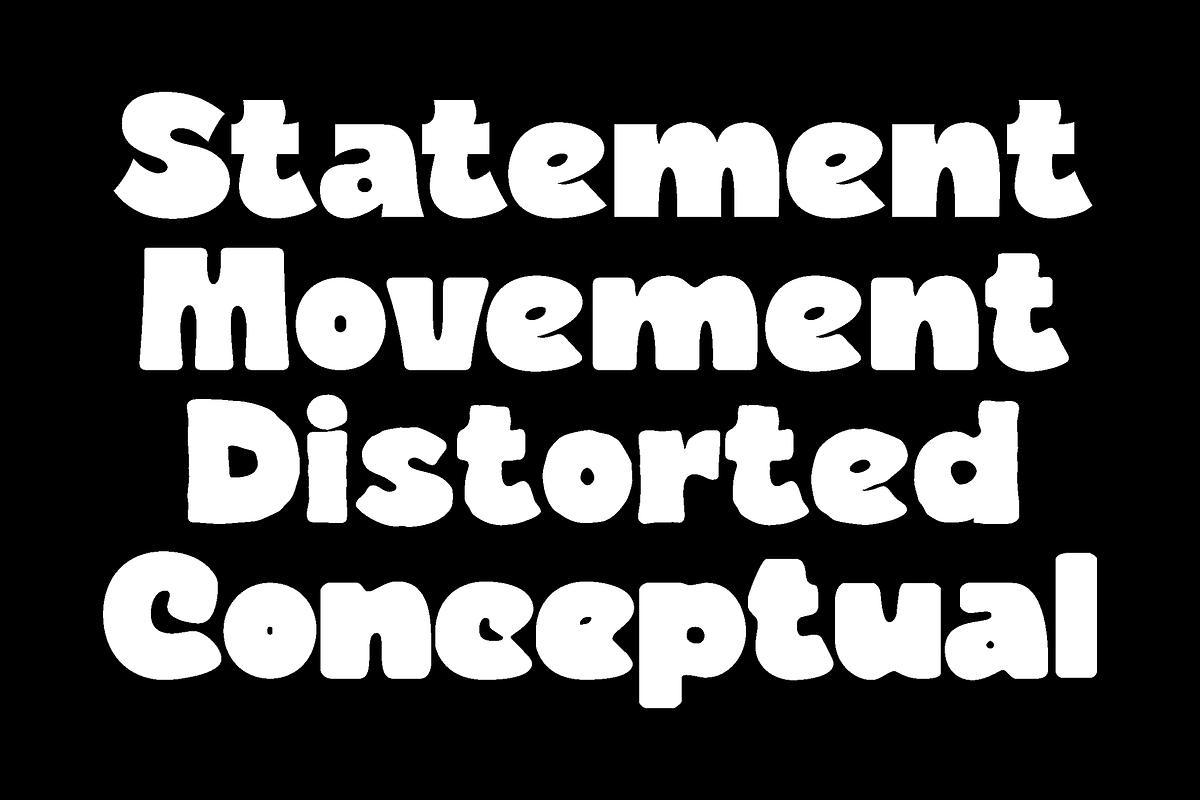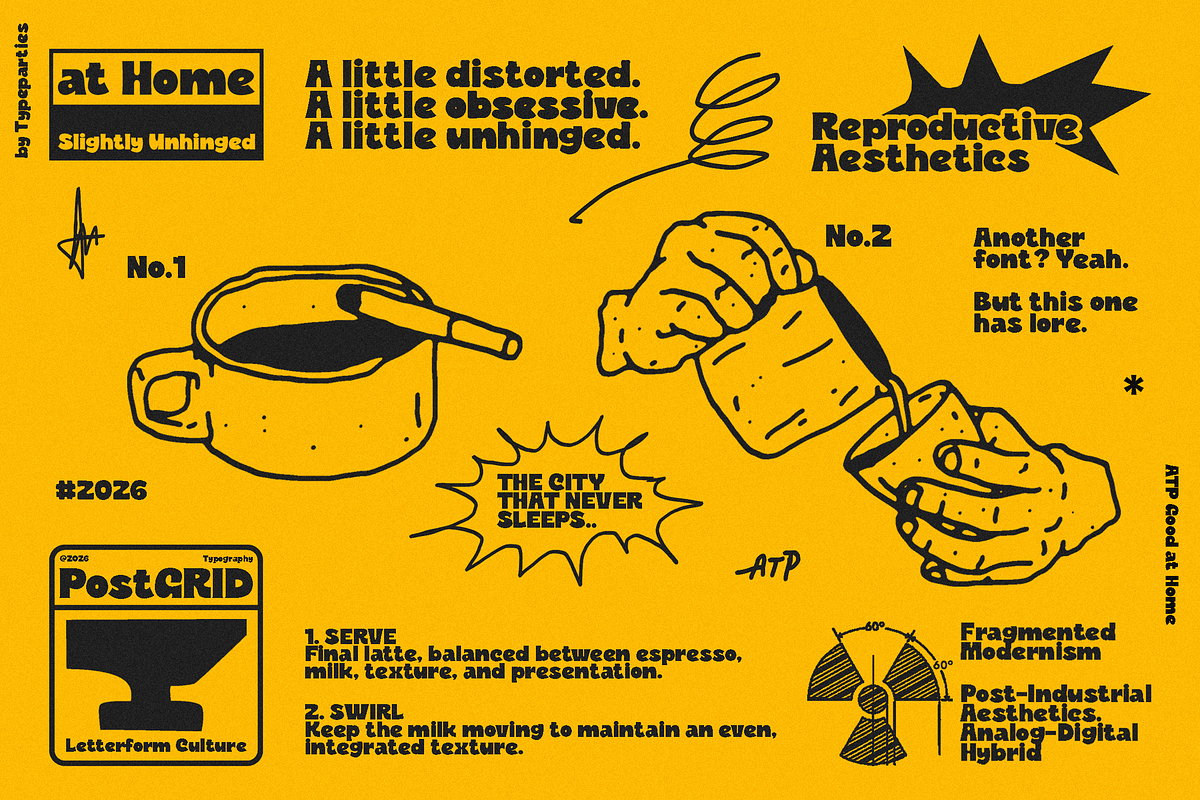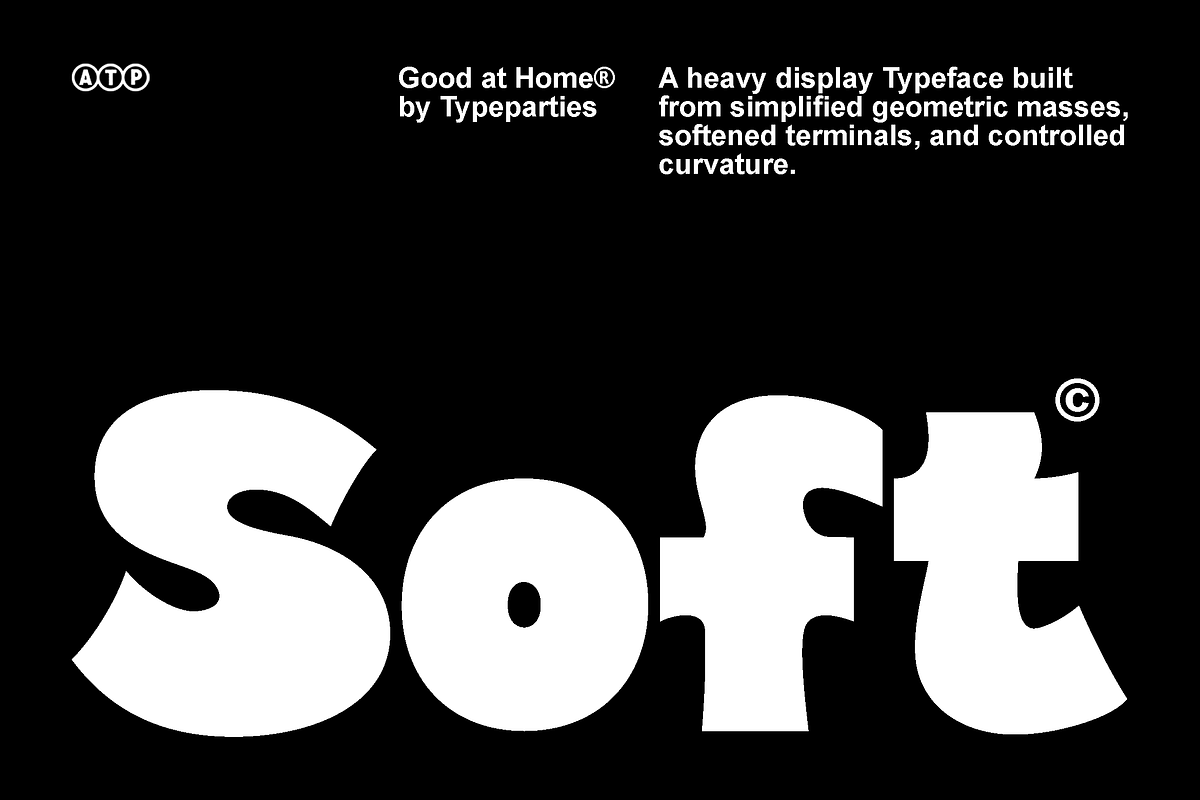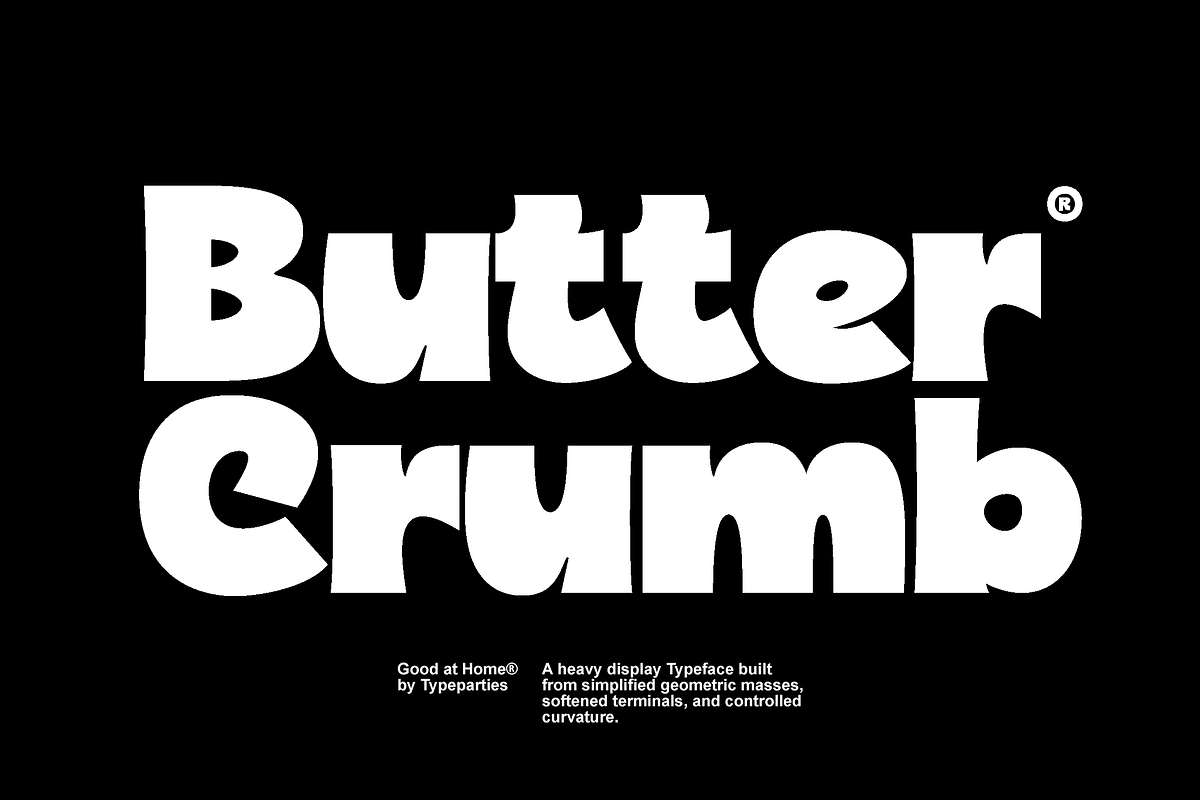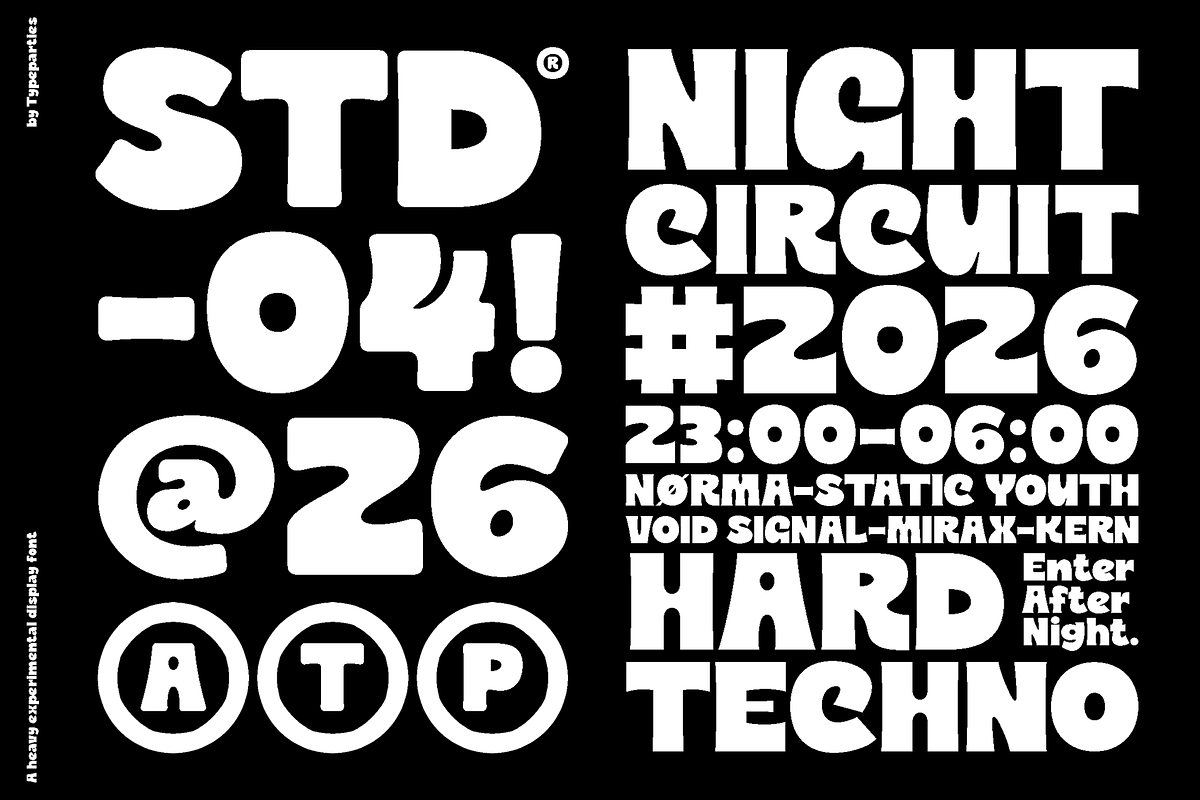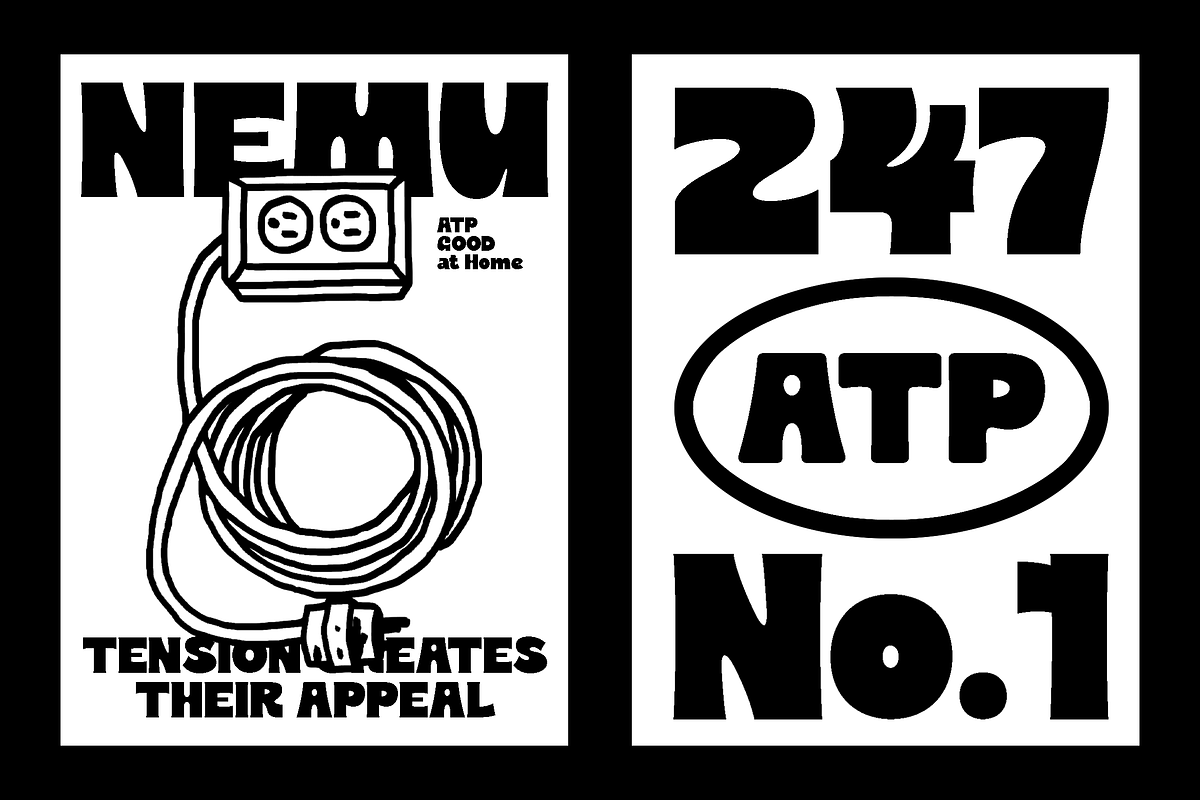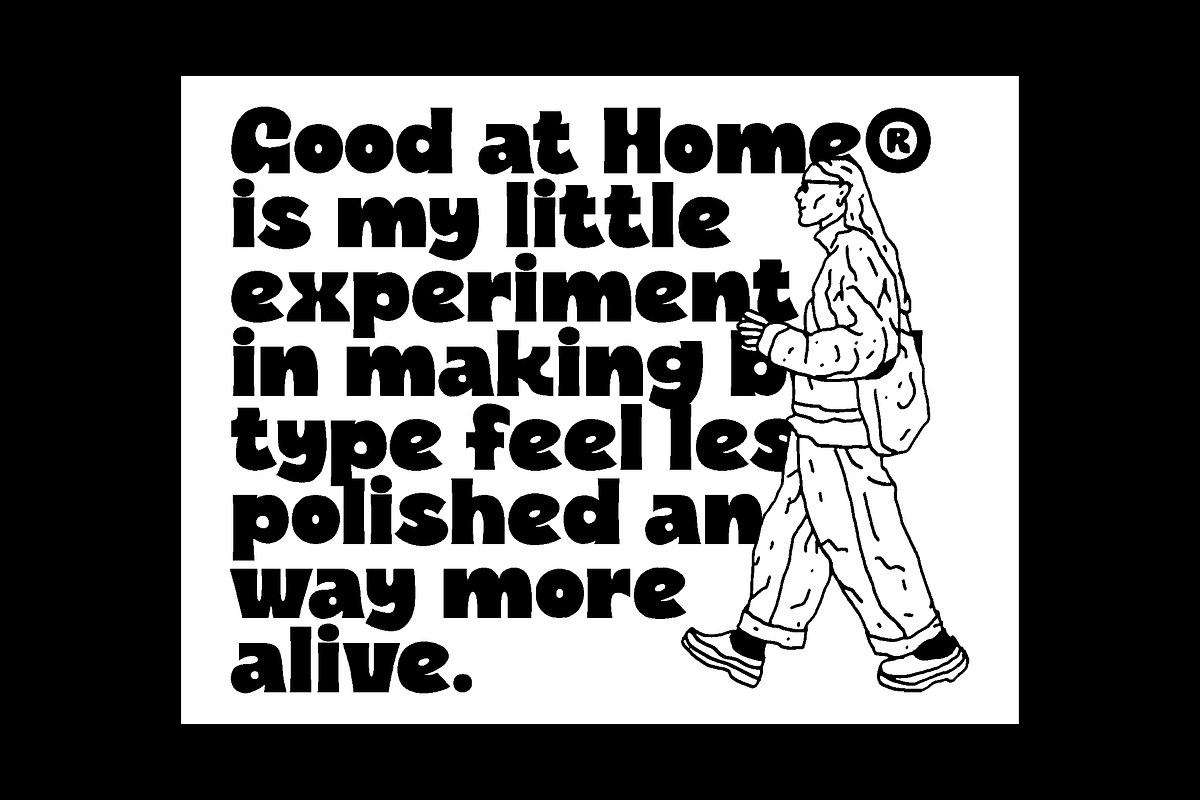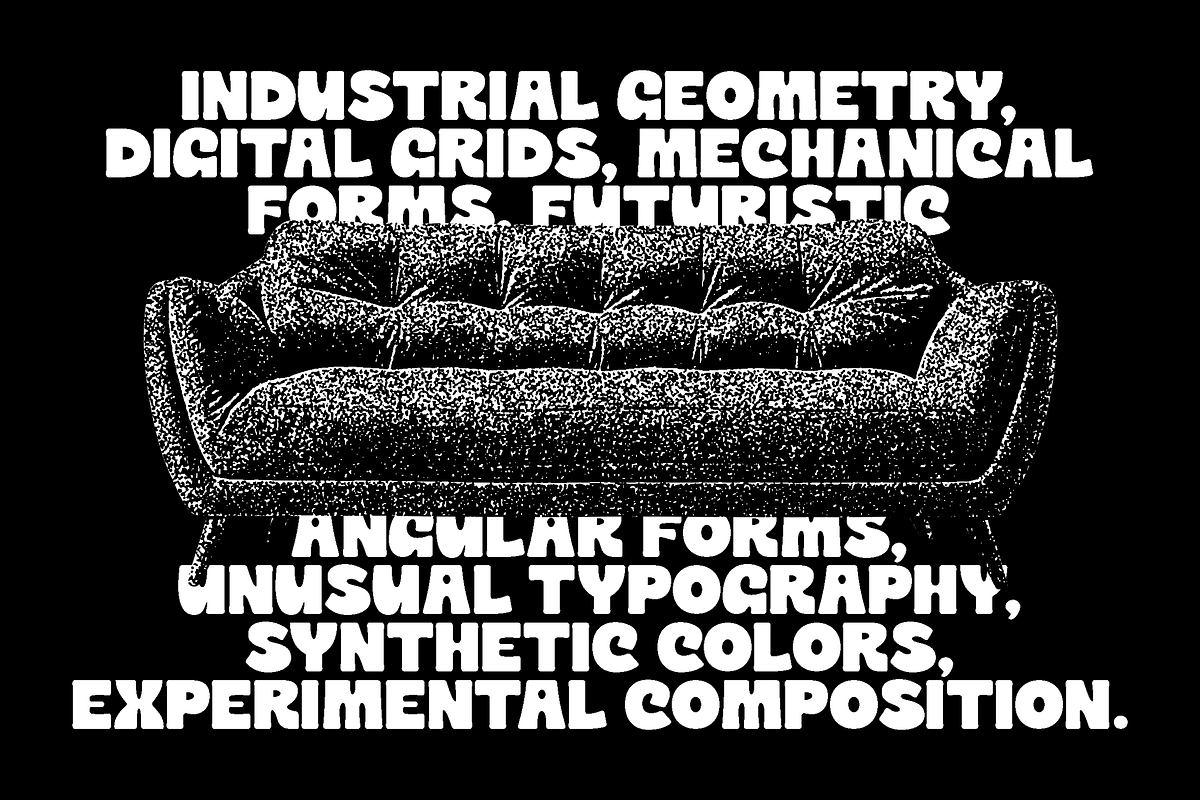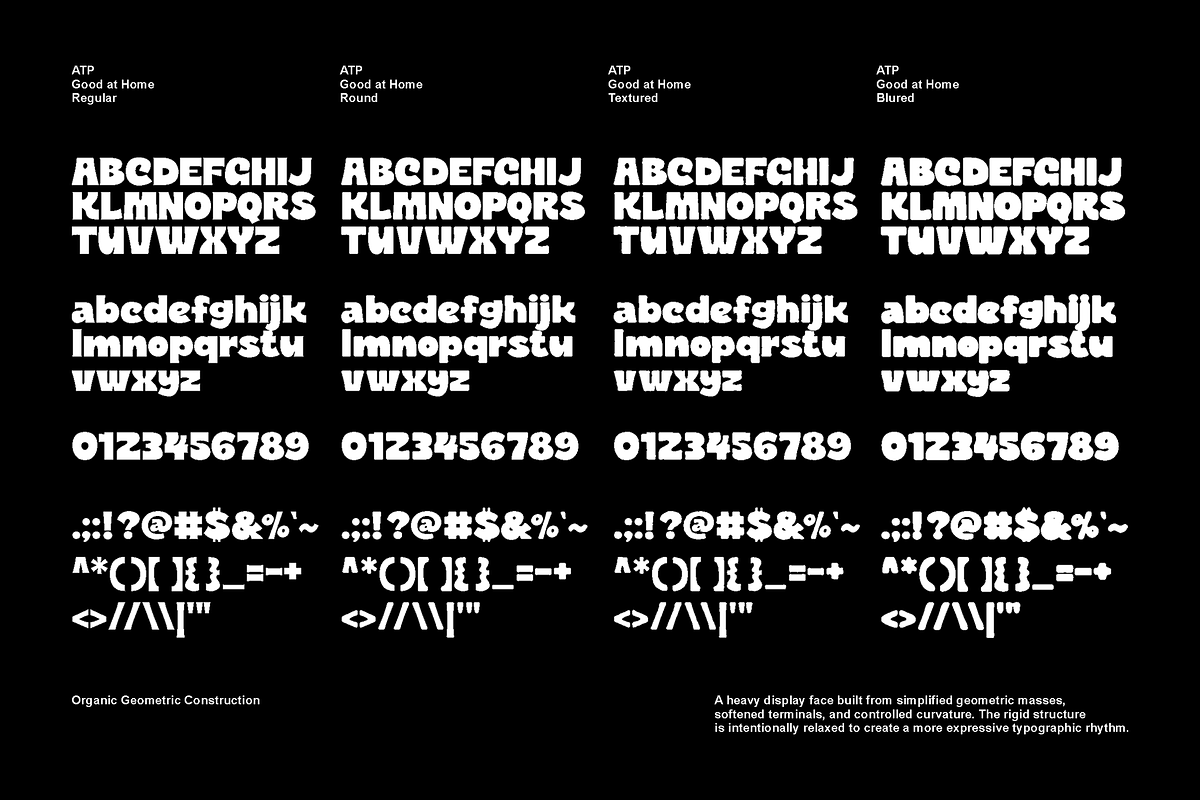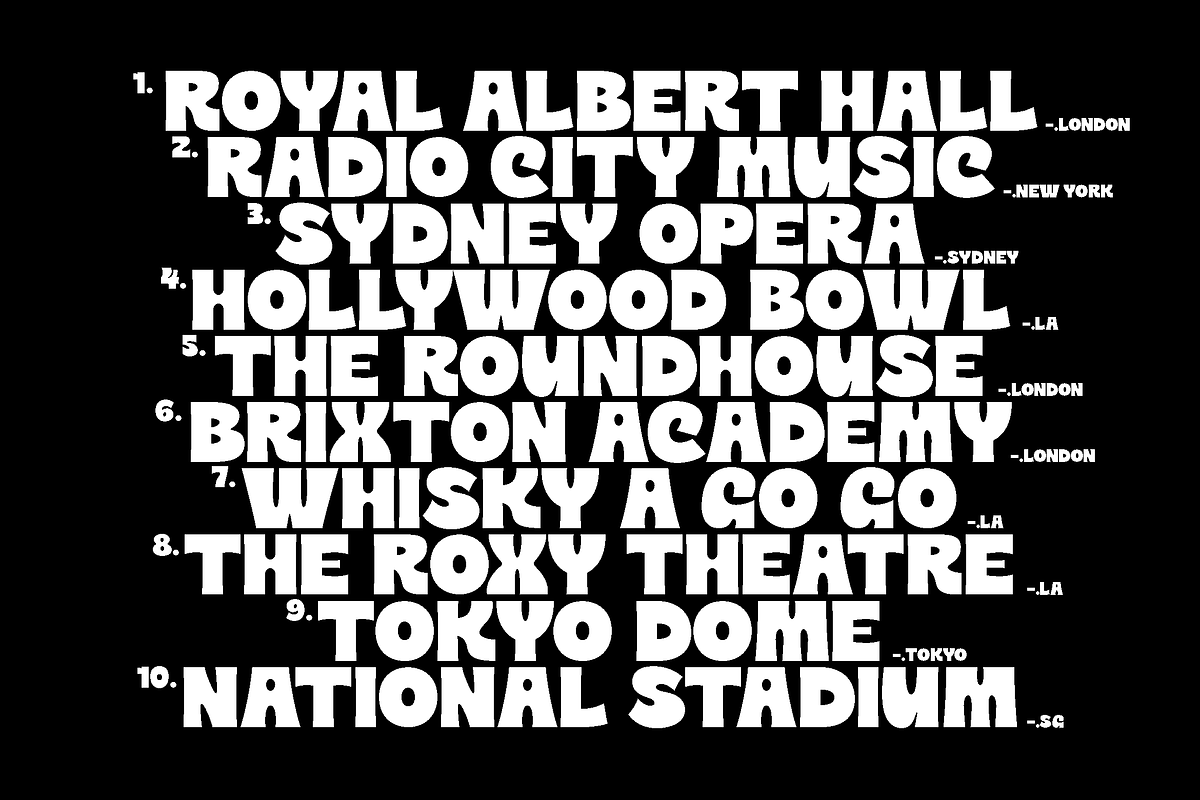
Good at Home - Bold Display Font
Good at Home is a bold experimental display typeface built around soft geometric forms, exaggerated proportions, and playful structural distortion. Its heavy weight creates an immediate visual impact, while rounded counters and unconventional terminals give the characters a warm, almost tactile personality.
The letterforms balance geometric mass with organic deformation. Circular forms are intentionally oversized, while selected strokes feature abrupt cuts, inward notches, and asymmetrical terminals. This creates a subtle tension between rigid construction and fluid movement, making the typeface feel expressive rather than mechanically geometric.
Its distinctive character comes from the contrast between solid blackletter-like weight and friendly, inflated shapes. The unusual construction of letters such as G, a, d, and m gives the typeface a recognizable visual voice, somewhere between retro display lettering, contemporary graphic design, and playful experimental typography.